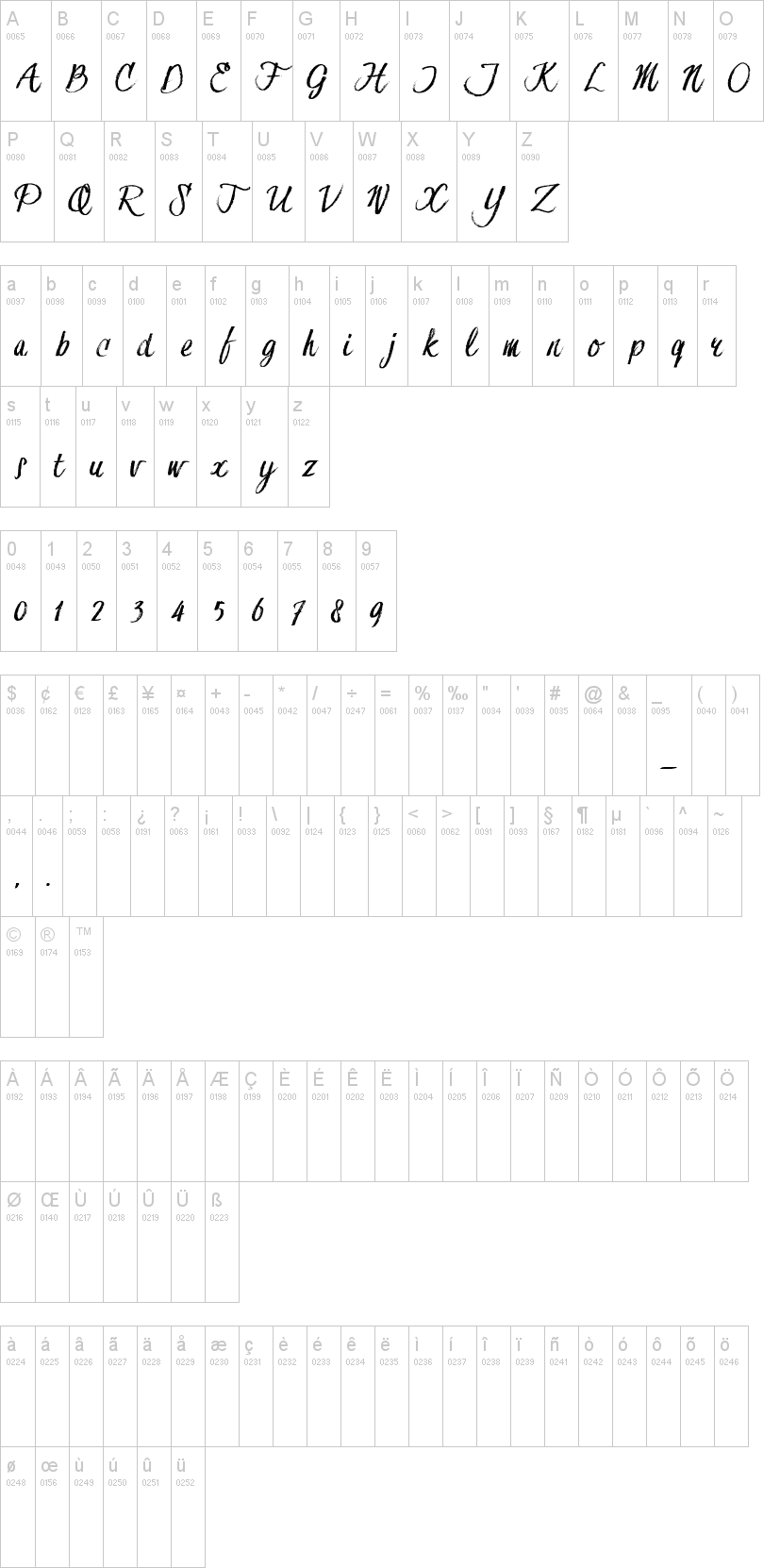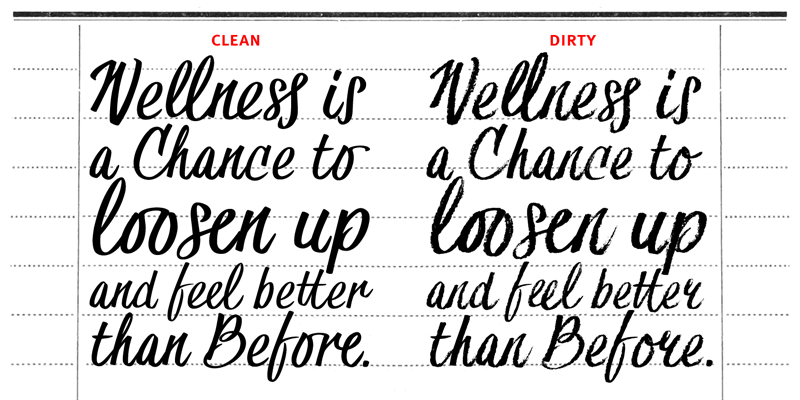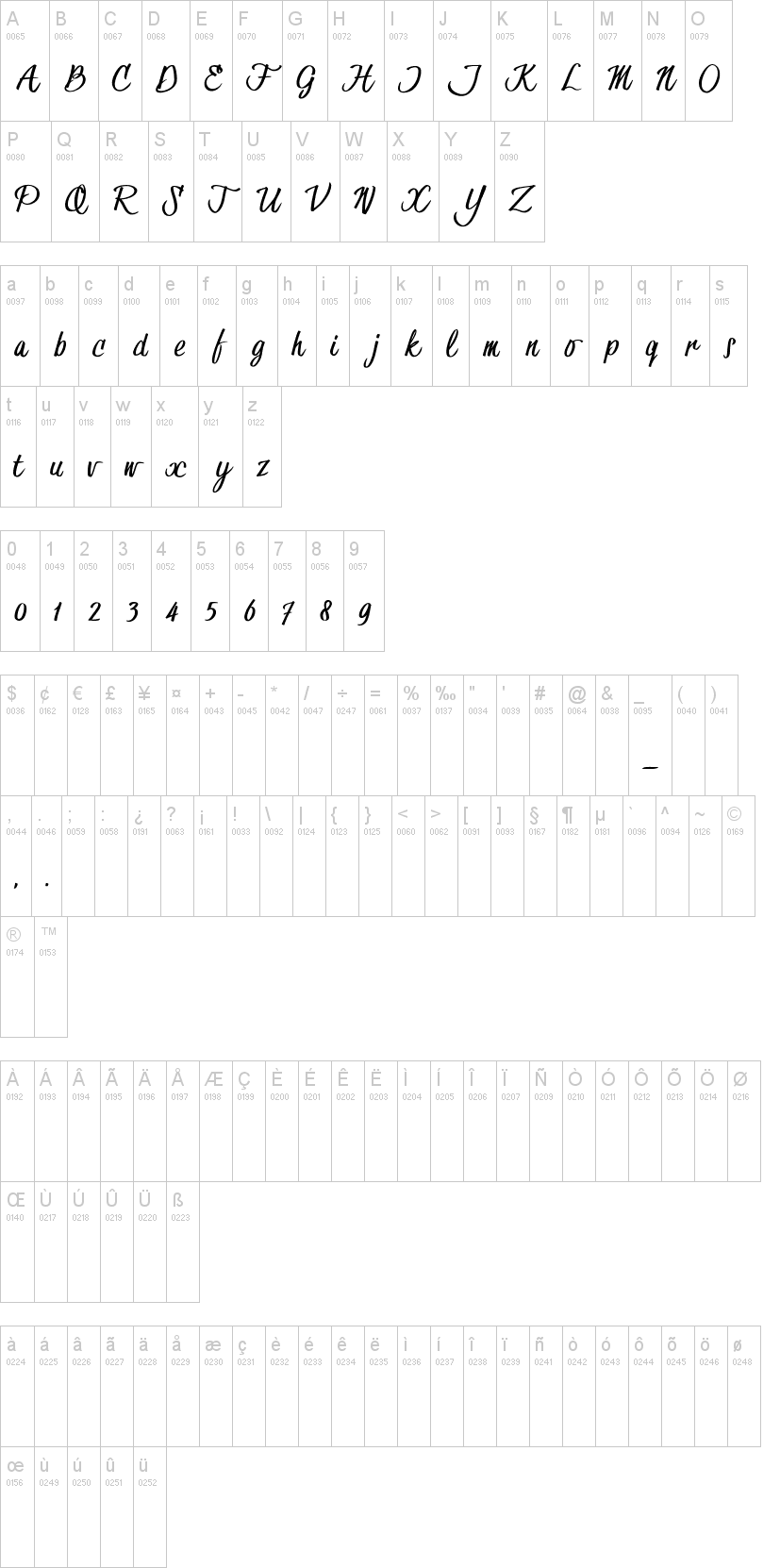
Hesster Mofet CLEAN_TRIAL.ttfNote of the authorThese are dressed down TRIAL versions of the Hesster Mofet font. The font comes in two styles: a CLEAN and smooth version and a DIRTY rough sketch version. The complete versions of the font come with a bunch of ligatures and a complete set of special signs and accents. You can buy your copy here: https://www.joebobgraphics.com/fonts/hesster-moffett/